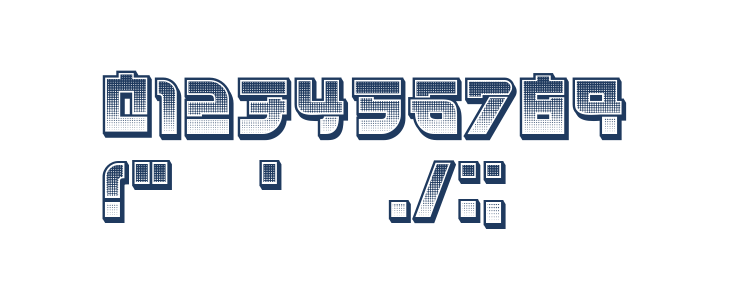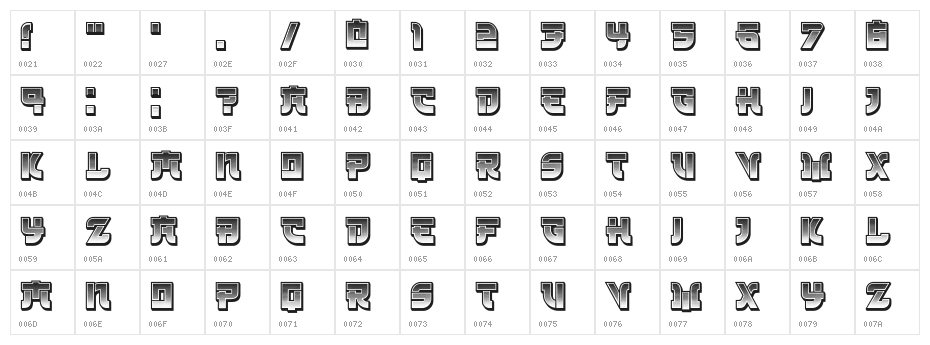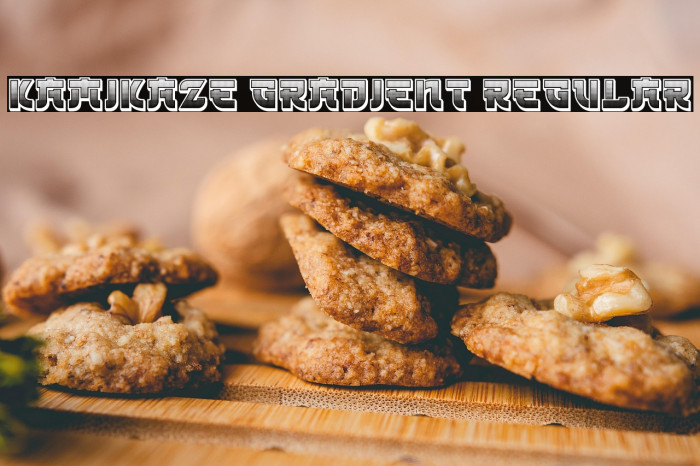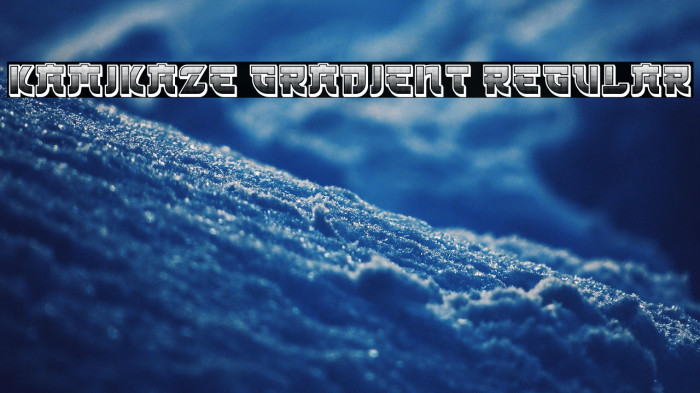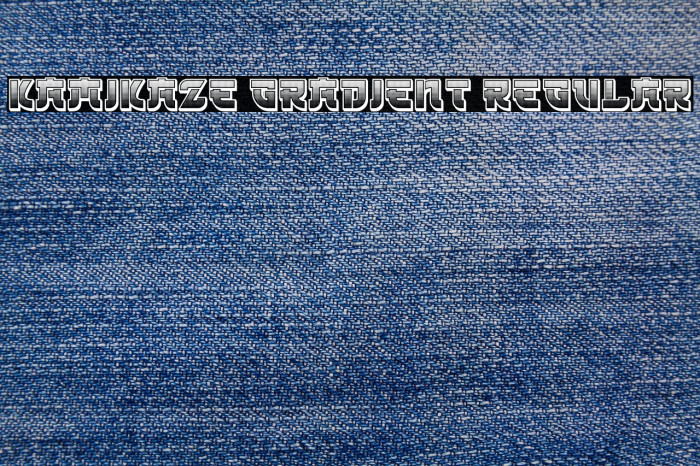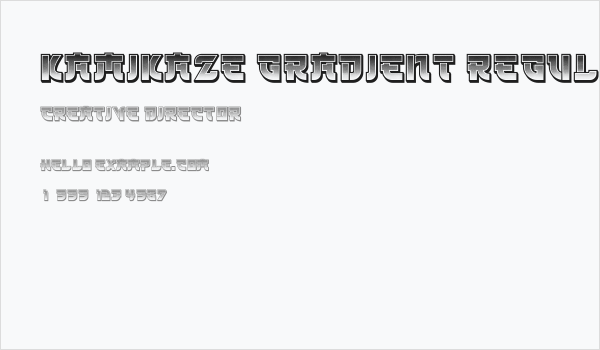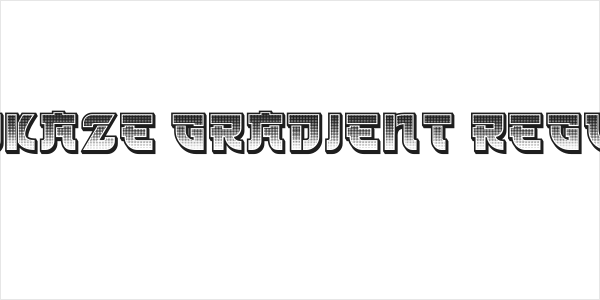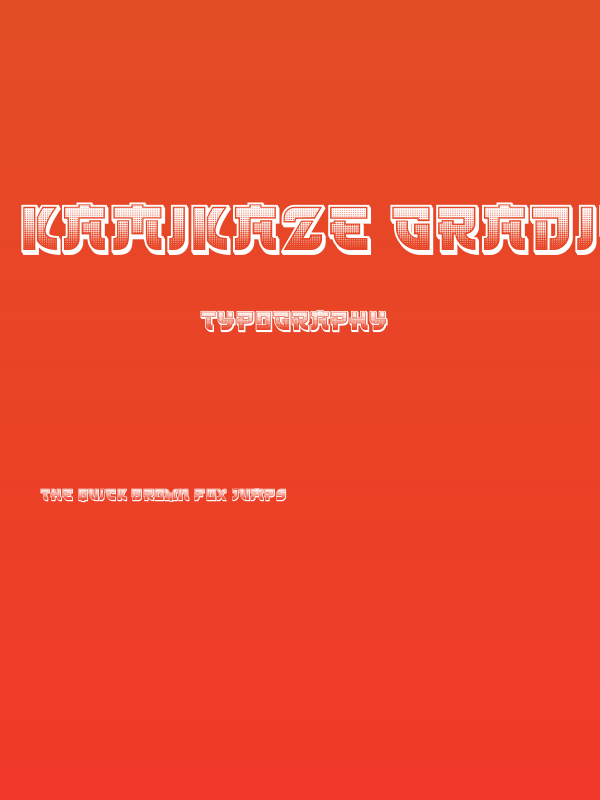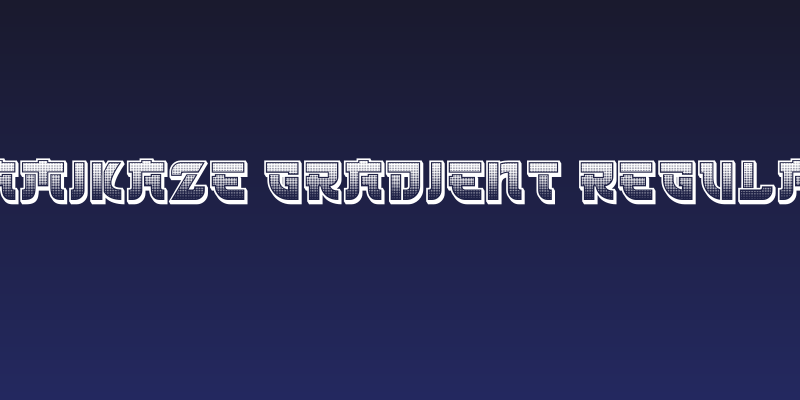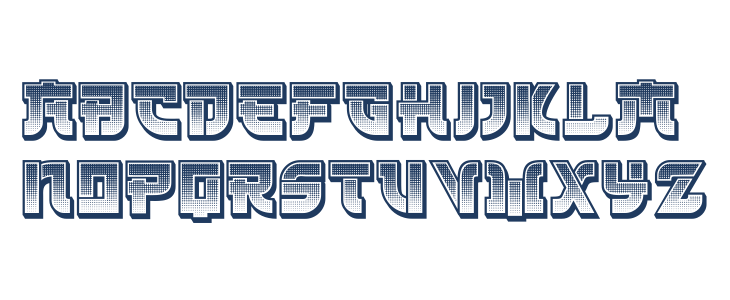
Kamikaze Gradient Regular Font
Kamikaze Gradient Regular Description
This font features a bold, decorative style with a unique gradient effect that gives it a three-dimensional appearance. The characters are outlined with a thick black border, enhancing their visibility and impact. The interior of each letter is filled with a gradient pattern, adding depth and a modern twist to the overall design. The font maintains a consistent geometric structure, with sharp angles and clean lines that contribute to its futuristic aesthetic. The uppercase letters are particularly striking, while the numerals and special characters maintain the same stylistic elements, ensuring uniformity across all glyphs.
| Proposed Projects | Ideal for eye-catching headlines, posters, branding projects, and digital artwork that require a modern and dynamic look. |